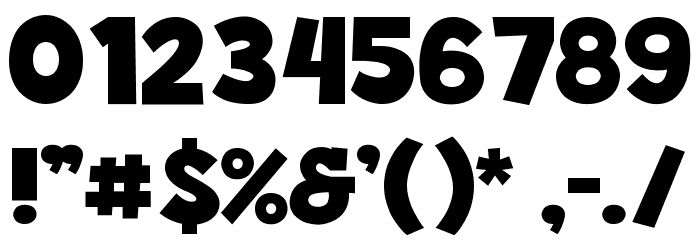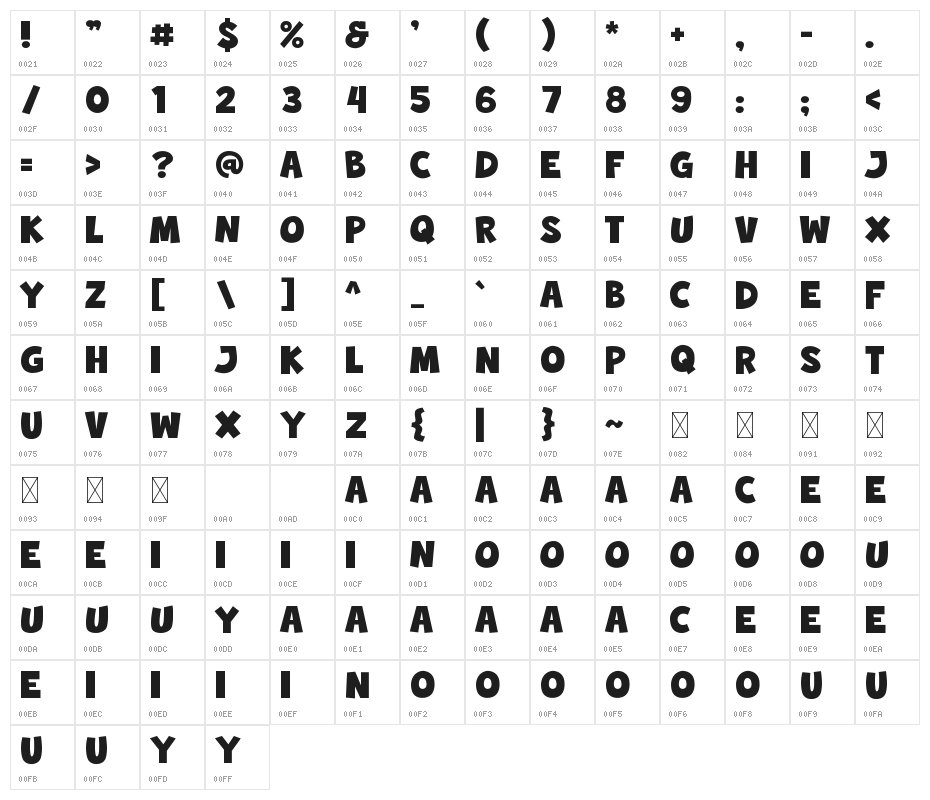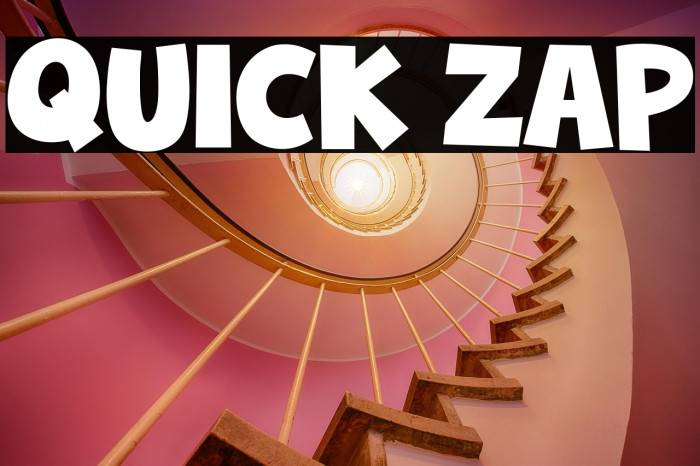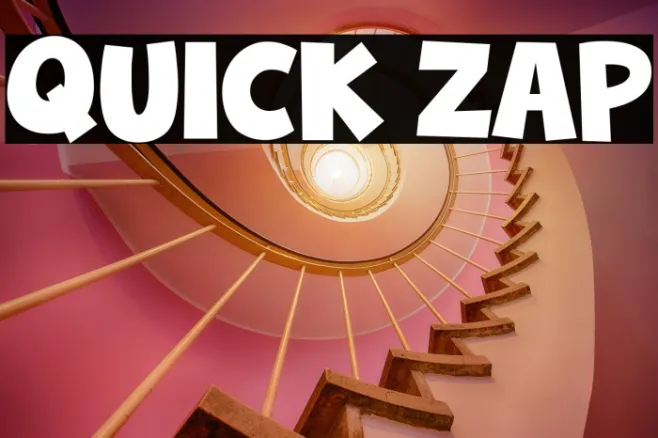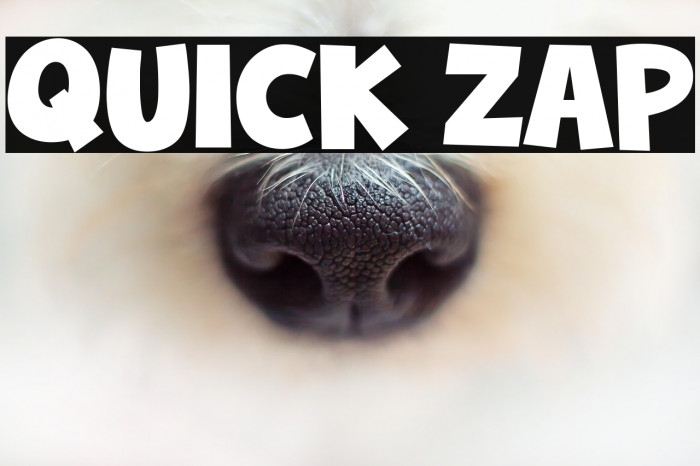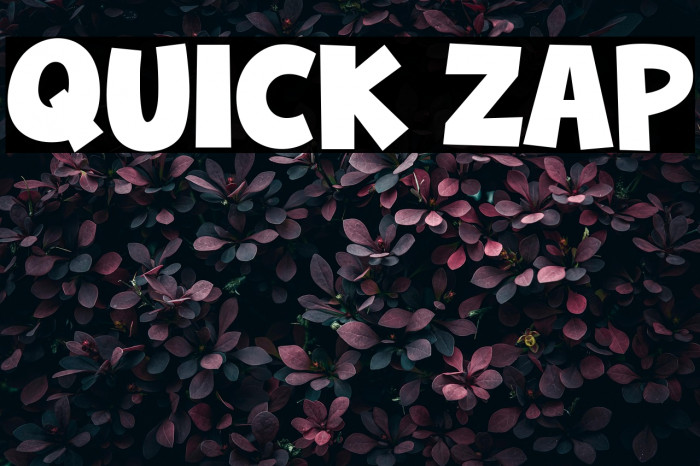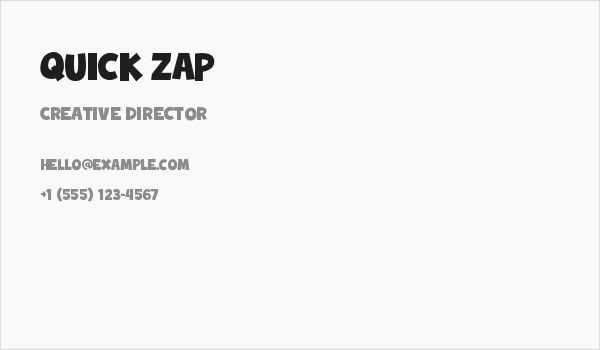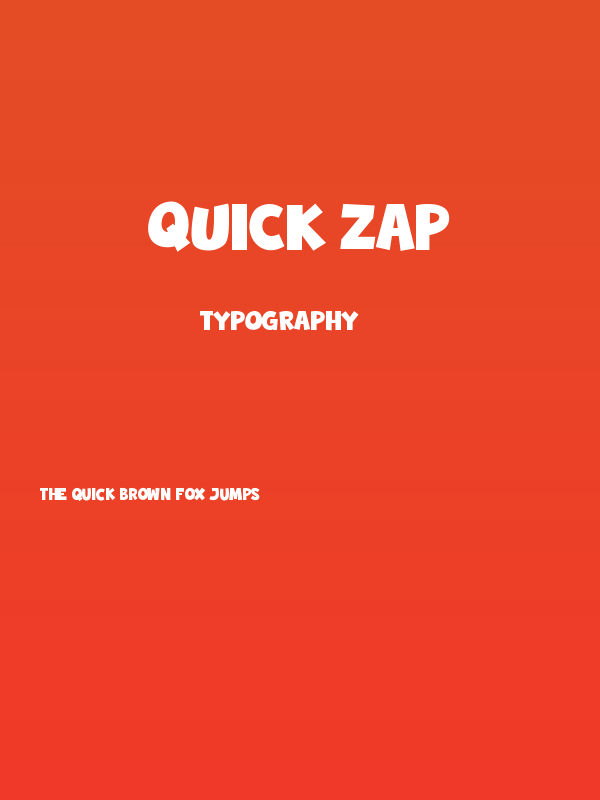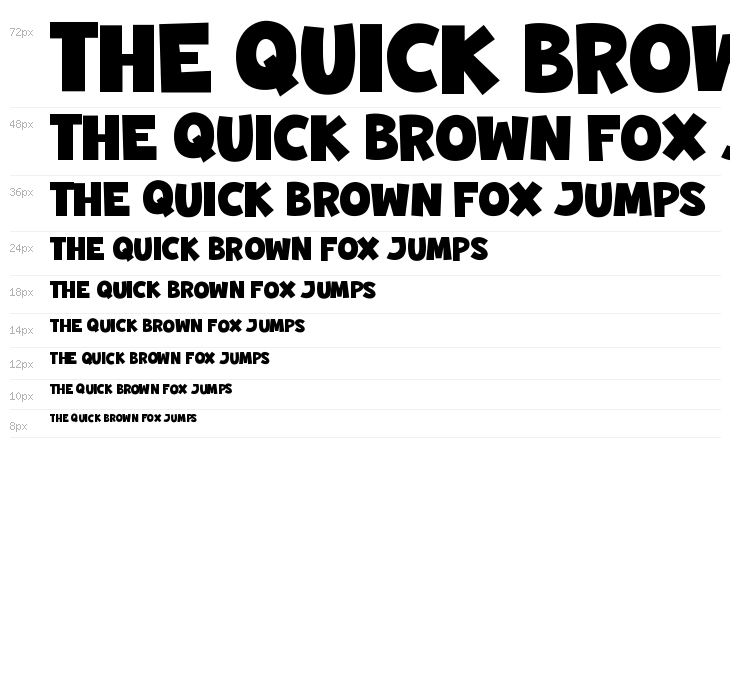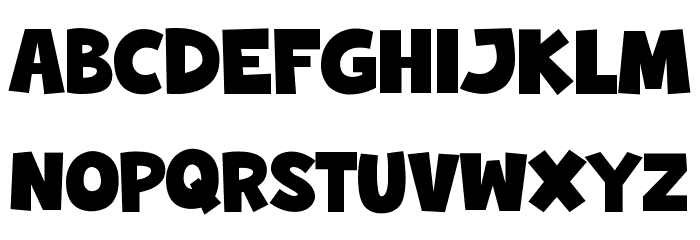
Quick Zap Font
Quick Zap Description
This font features bold, playful characters with a slightly irregular and dynamic appearance. The letters are thick and have a cartoonish style, making them stand out with a strong presence. The strokes are consistent in weight, contributing to a cohesive look across all characters. The font includes both uppercase and lowercase letters, numbers, and a variety of special characters, ensuring versatility in design applications. Its boldness and unique style make it ideal for projects that require a fun and engaging visual impact.
| Overall Style | Playful, Cartoonish |
| Proposed Projects | Ideal for children's books, comic strips, playful branding, and eye-catching posters. |